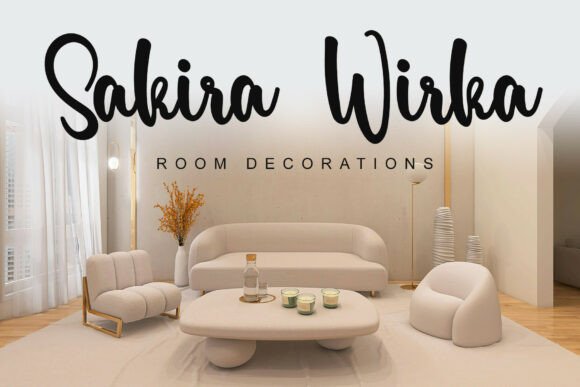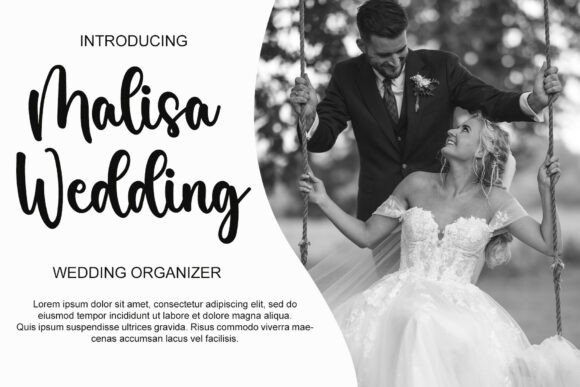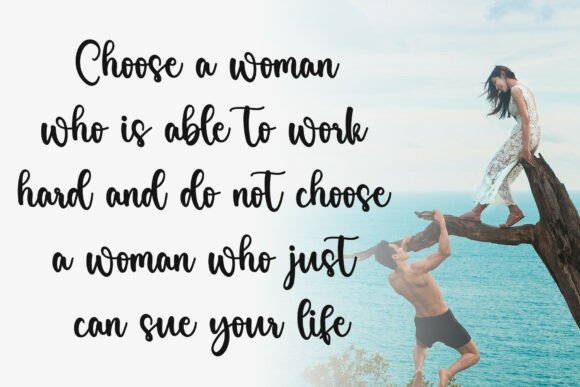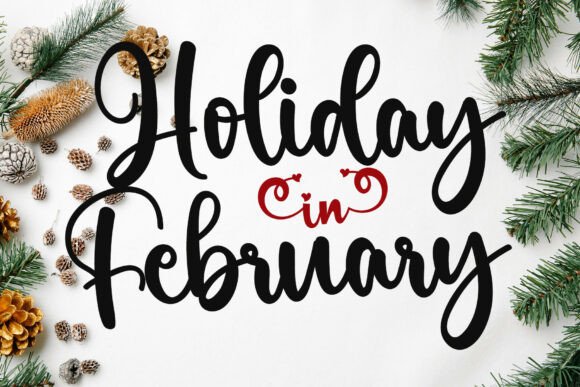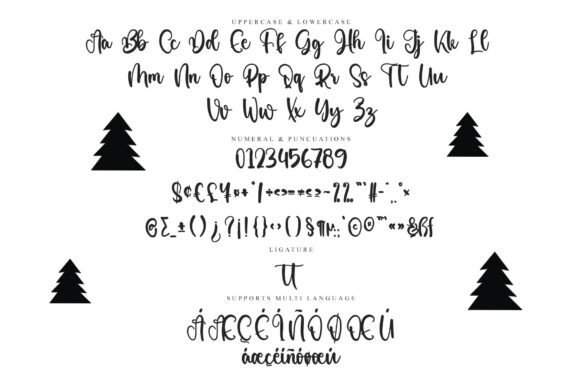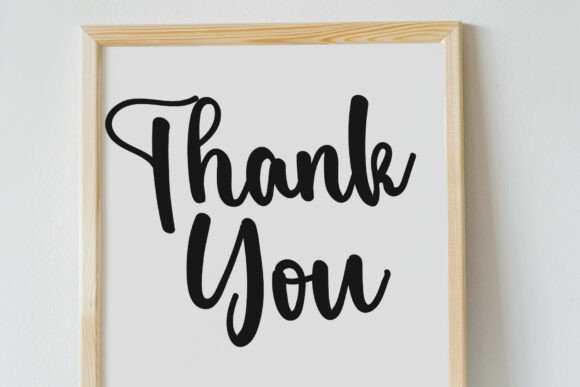
Introducing Amount Christmas Font: The Perfect Addition to Your Design Collection
Are you looking for a font that can add a touch of elegance and whimsy to your designs? Look no further than Amount Christmas Font! This sweet and cursive handwritten font is perfect for designers and crafters who want to create beautiful and eye-catching projects. In this article, we’ll dive into the features and benefits of Amount Christmas Font, and explore how you can use it to take your designs to the next level.
A Sweet and Cursive Handwritten Font
Amount Christmas Font is a beautiful, handwritten font that features a cursive and elegant style. The font is designed to be highly legible and versatile, making it perfect for a wide range of design projects. Whether you’re creating a logo, greeting card, or marketing promotion, Amount Christmas Font is sure to add a touch of sophistication and whimsy to your design.
One of the best things about Amount Christmas Font is its versatility. This font can be used for a wide range of design projects, including:
- Branding: Use Amount Christmas Font to create a unique and memorable brand identity that sets you apart from the competition.
- Logo Design: Create a stunning logo that showcases your brand’s personality and style with Amount Christmas Font.
- Wedding Things: Add a touch of romance and elegance to your wedding designs, including invitations, programs, and decorations.
- Greeting Cards: Create beautiful and heartfelt greeting cards for any occasion with Amount Christmas Font.
- Fashion: Use Amount Christmas Font to create stunning fashion designs, including lookbooks, marketing promotions, and more.
Why Choose Amount Christmas Font?
So why choose Amount Christmas Font for your design projects? Here are just a few reasons:
- Unique and Eye-Catching: Amount Christmas Font is a unique and eye-catching font that will help your designs stand out from the crowd.
- Elegant and Whimsical: This font features a beautiful, elegant style with a touch of whimsy and playfulness.
- Highly Legible: Amount Christmas Font is designed to be highly legible, making it perfect for use in a wide range of design projects.
Tips for Using Amount Christmas Font
Here are a few tips for using Amount Christmas Font in your design projects:
- Pair with Other Fonts: Amount Christmas Font looks great when paired with other fonts, including bold and sans-serif fonts.
- Use for Headings and Titles: This font is perfect for use in headings and titles, where you want to make a bold and eye-catching statement.
- Add a Personal Touch: Use Amount Christmas Font to add a personal touch to your designs, including handwritten notes and signatures.